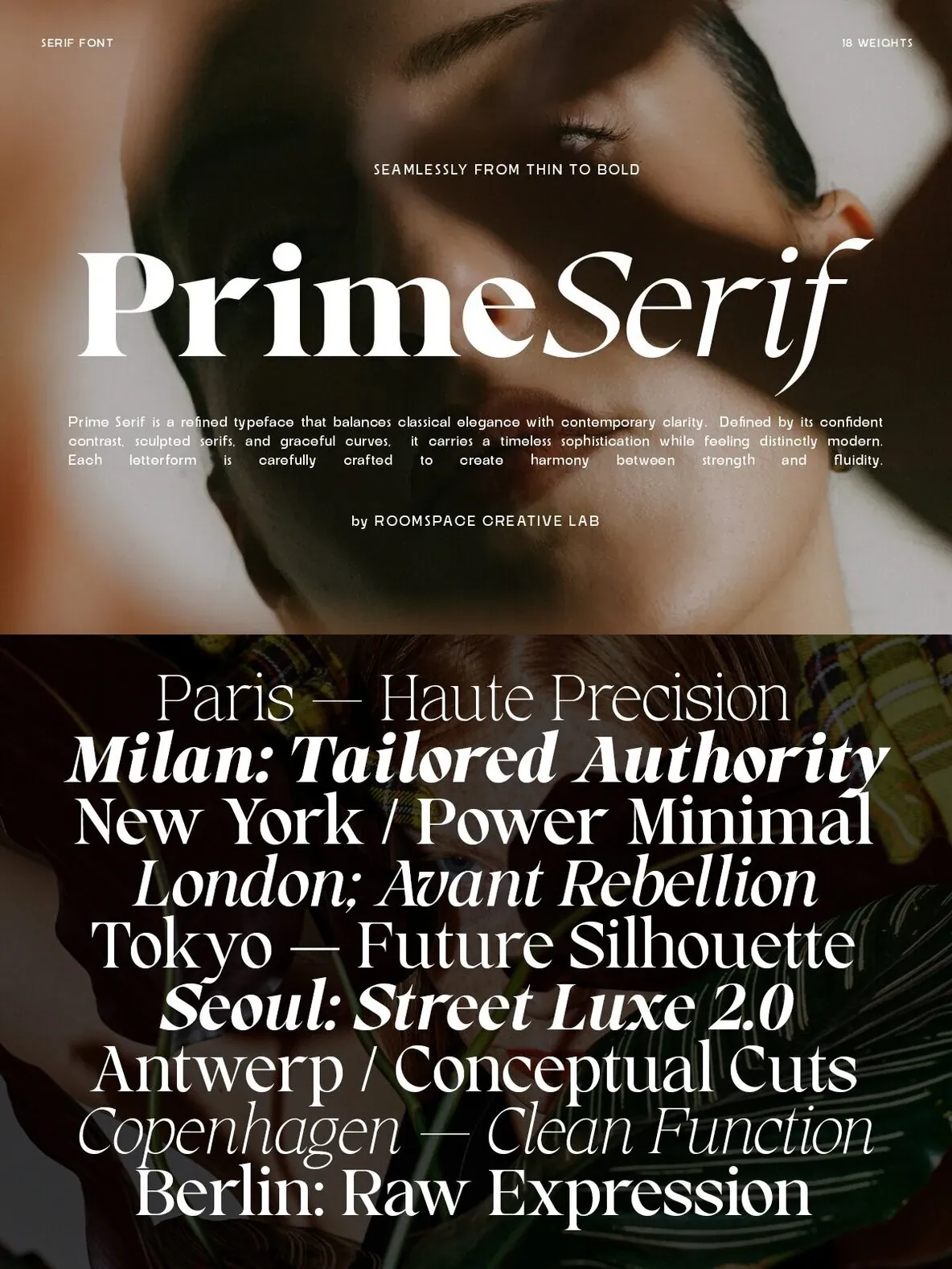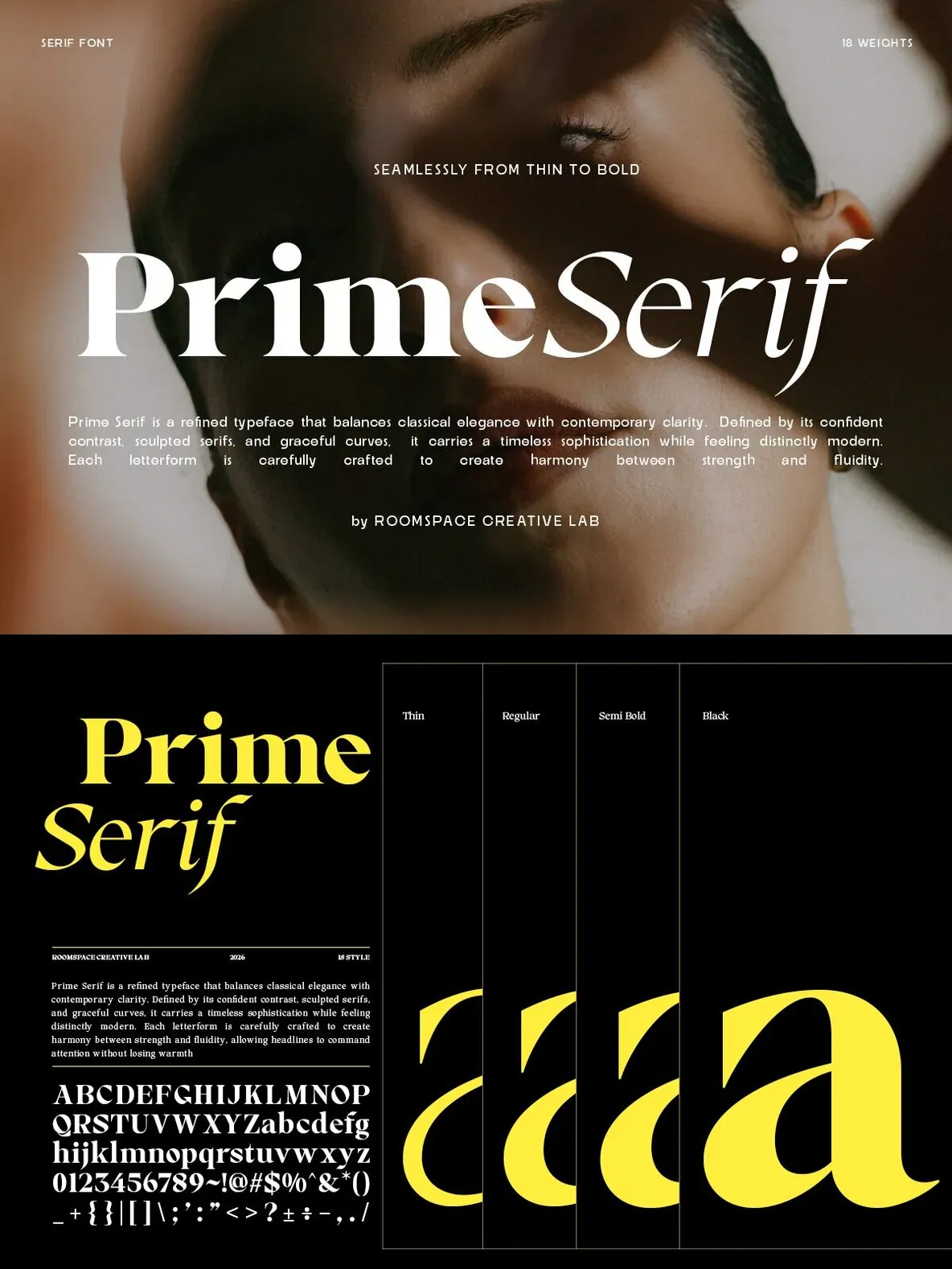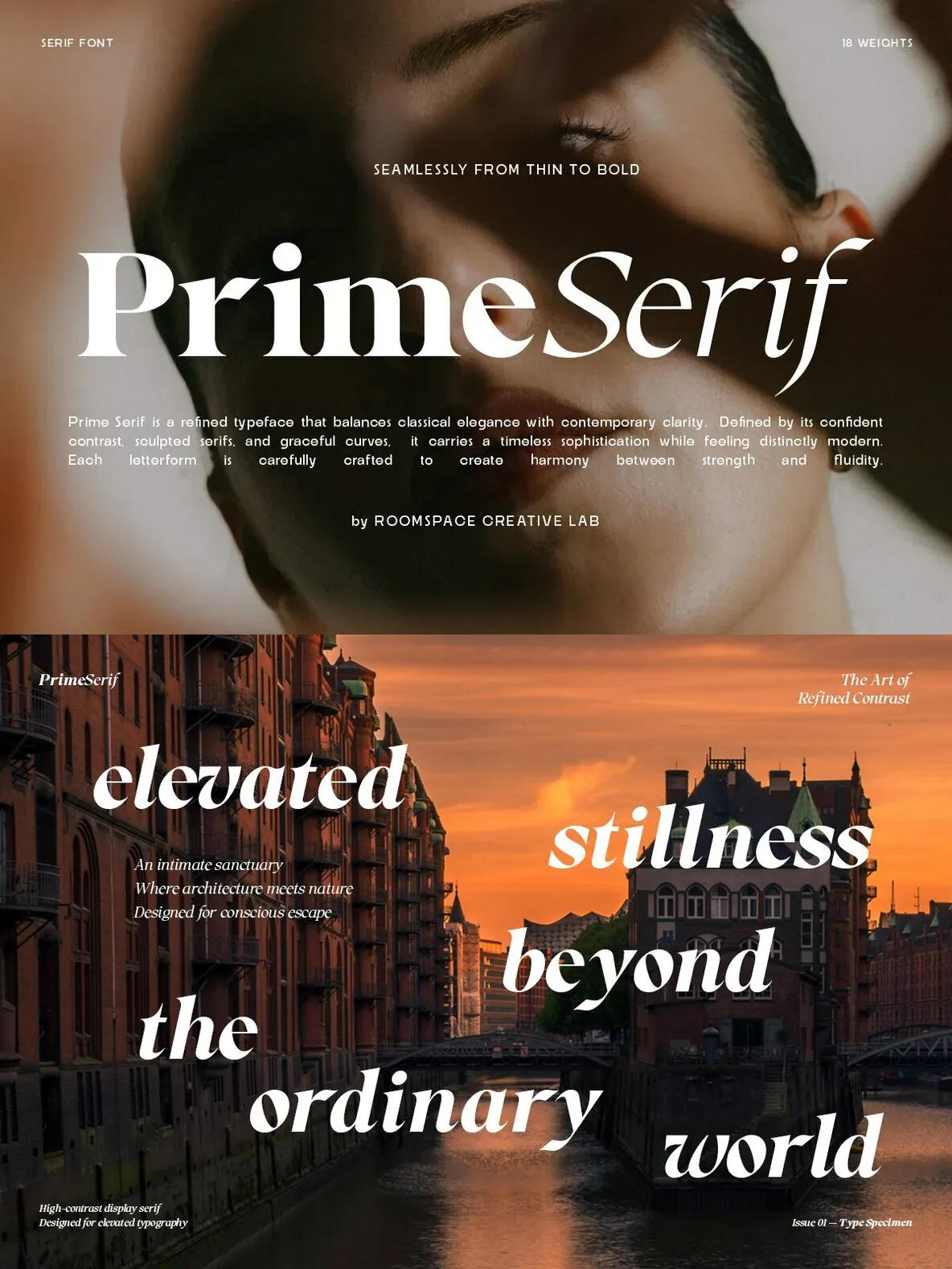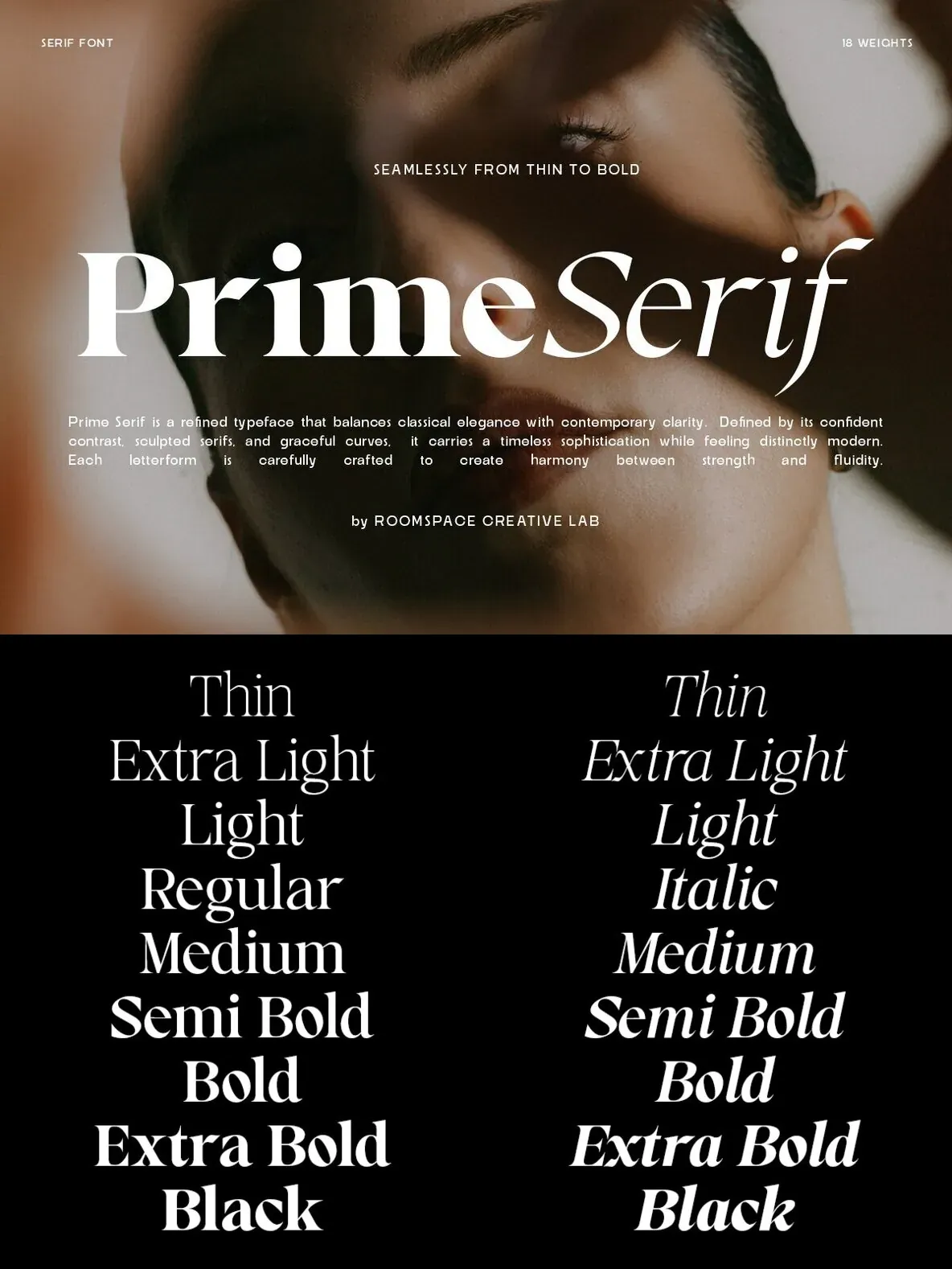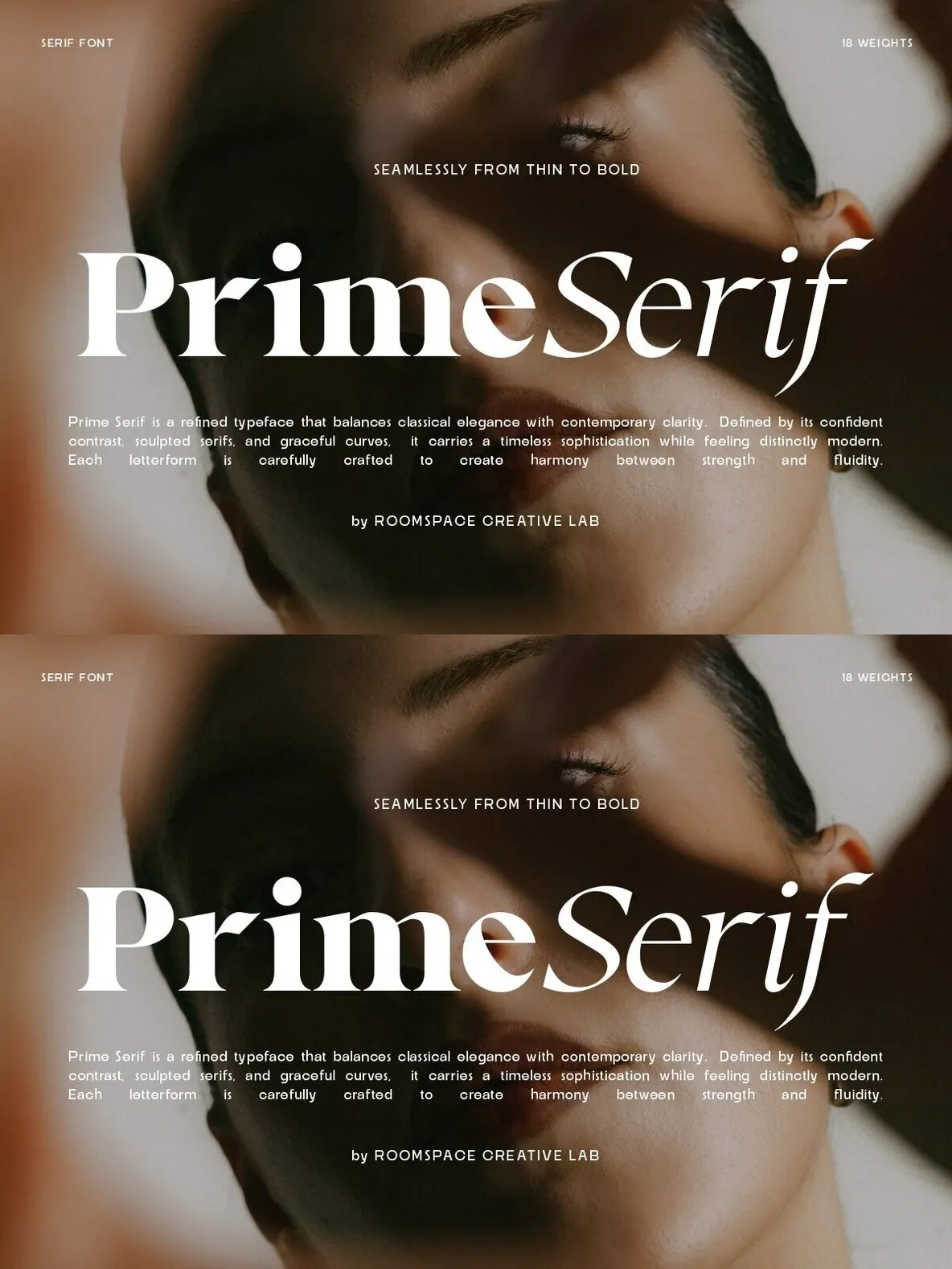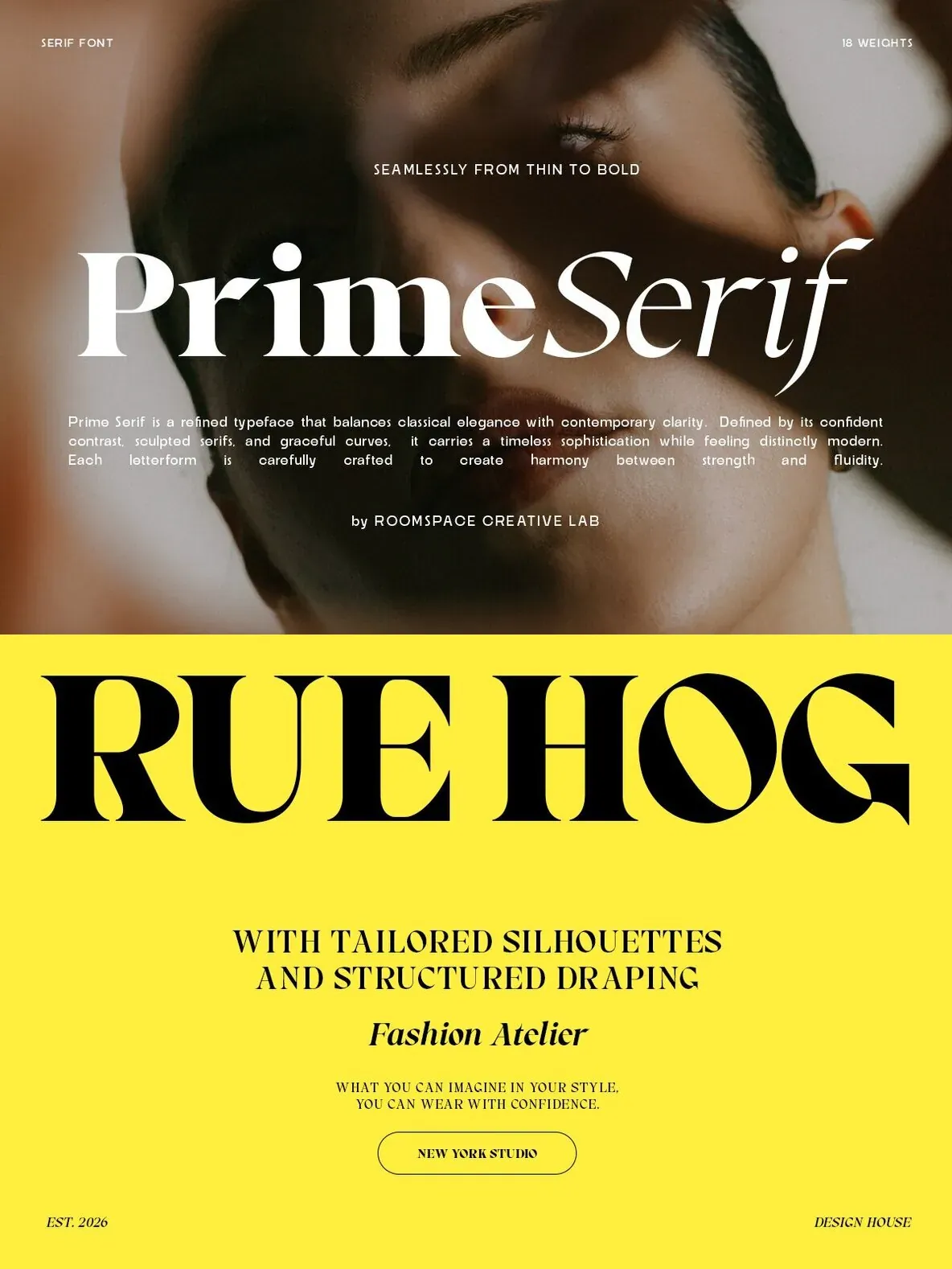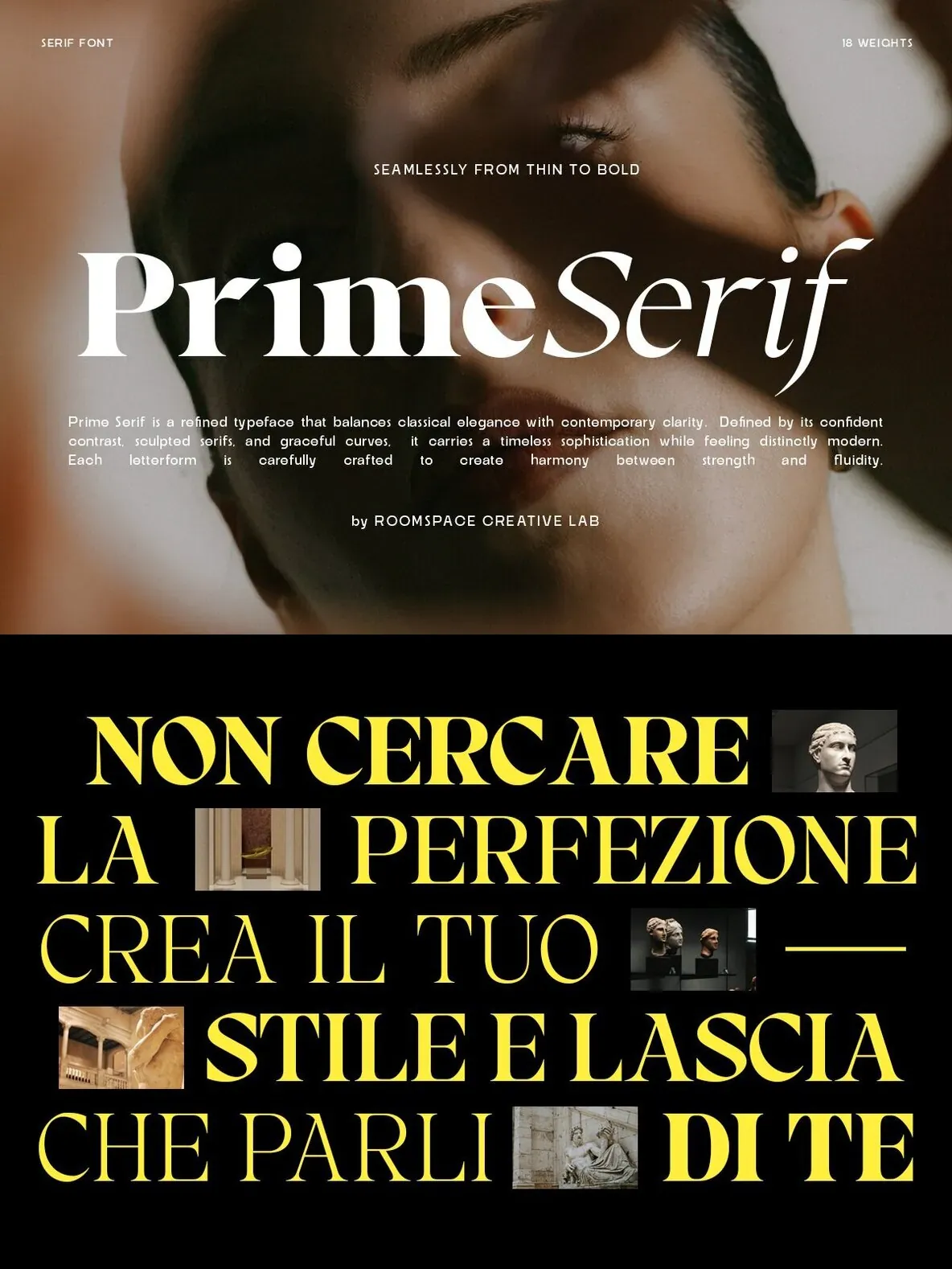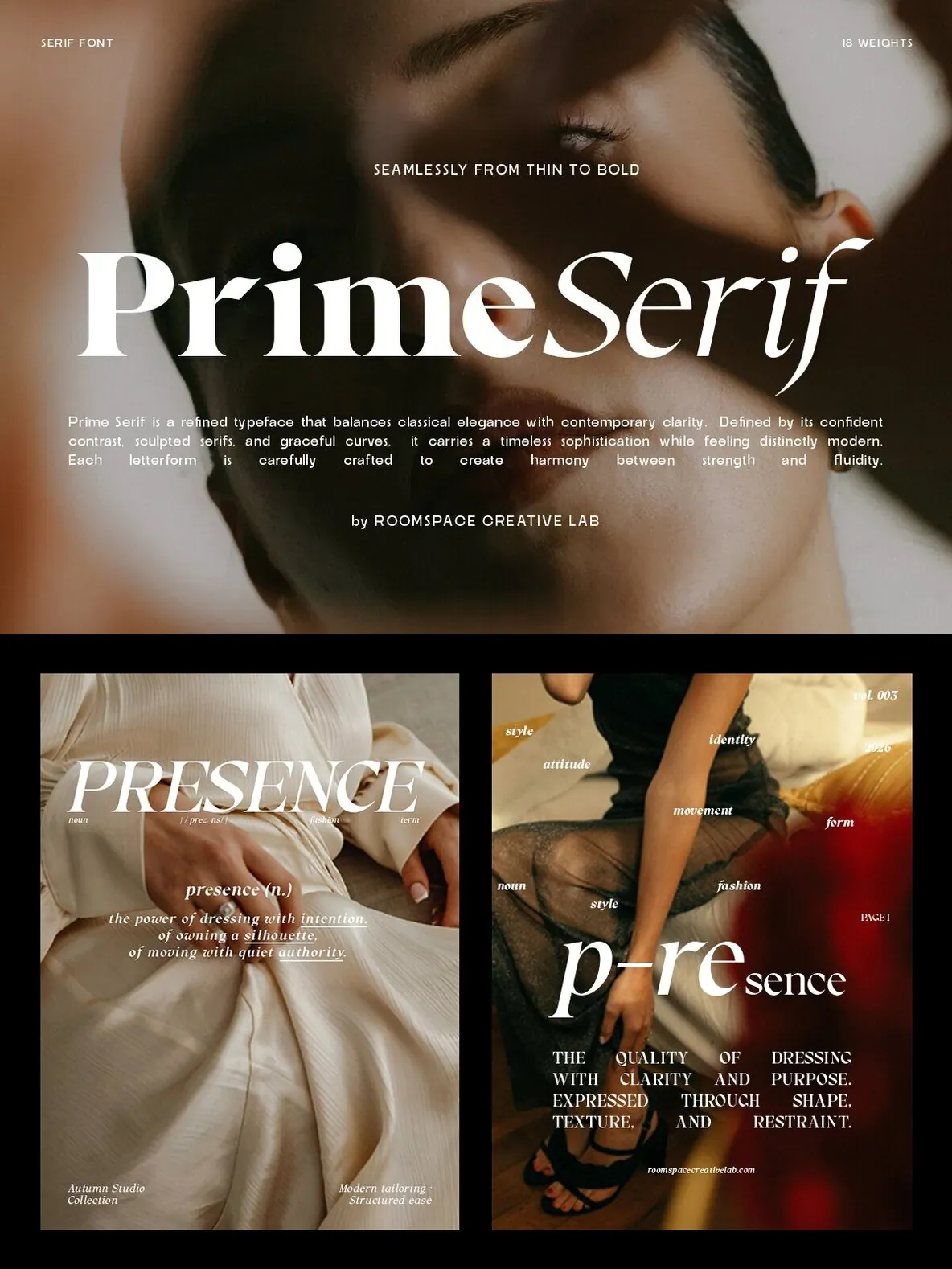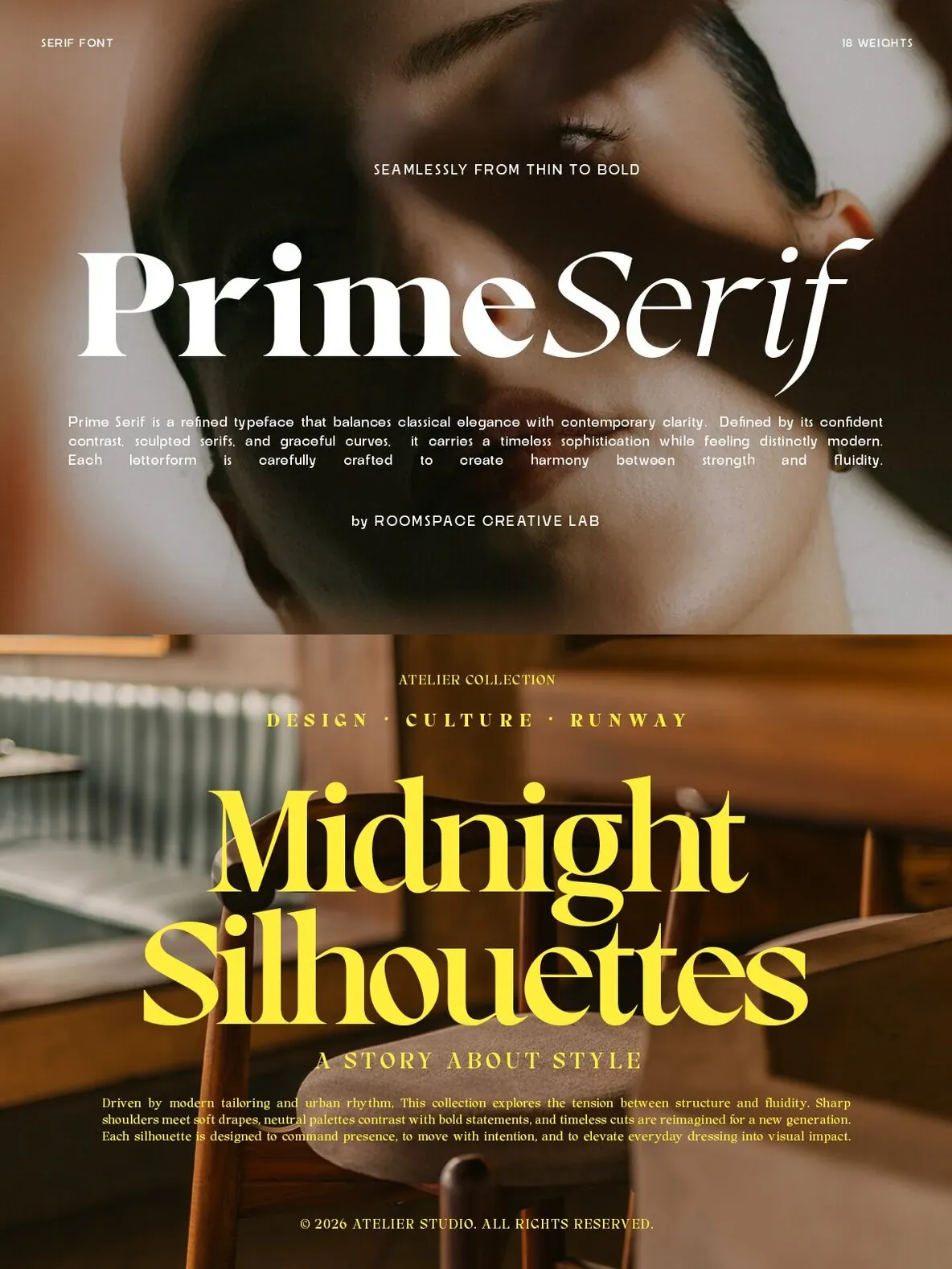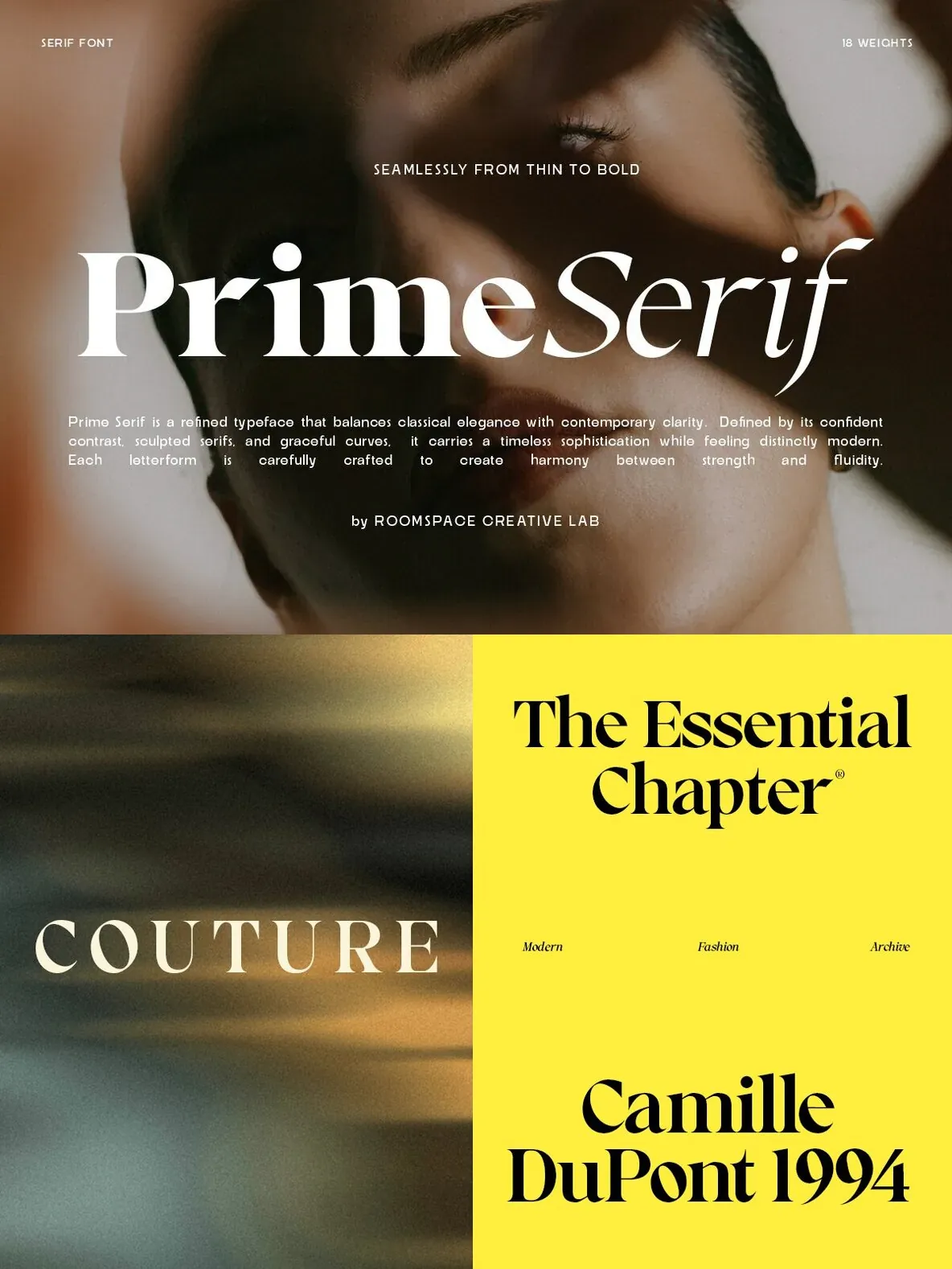
PrimeSerif — Modern poise, serif clarity
PrimeSerif is a modern serif typeface family that combines classical elegance with contemporary typographic clarity.
With 18 weights ranging from Thin to Bold, the family brings real range to expressive headlines and structured editorial typography. Carefully sculpted serifs, balanced contrast, and harmonious proportions support a sophisticated typographic system suited to luxury branding, magazine design, and high-end visual communication. PrimeSerif reads cleanly in both print and digital environments, keeping a consistent rhythm and dependable readability across sizes.
Styles: 18 Weights (Thin – Bold)
Features: Multilingual support, professional kerning, editorial spacing